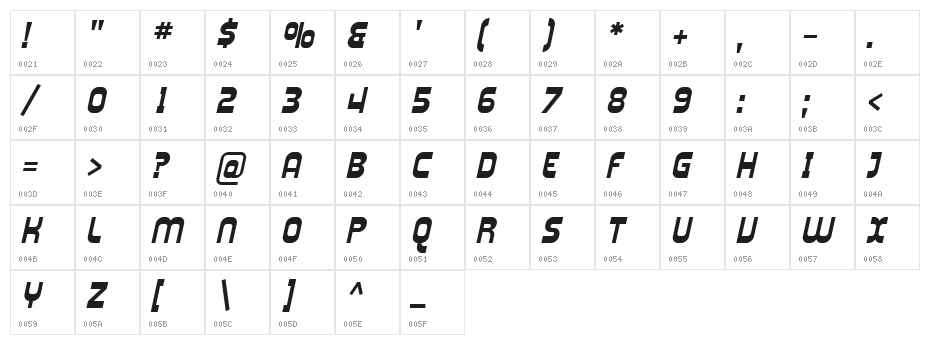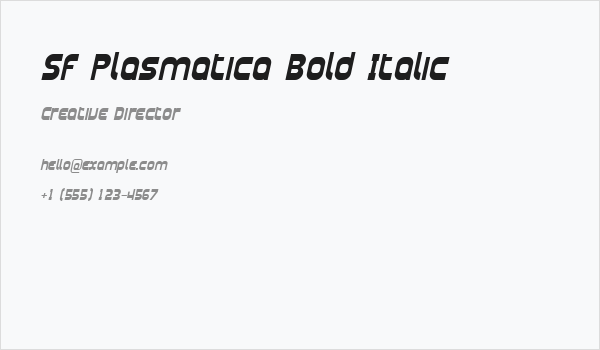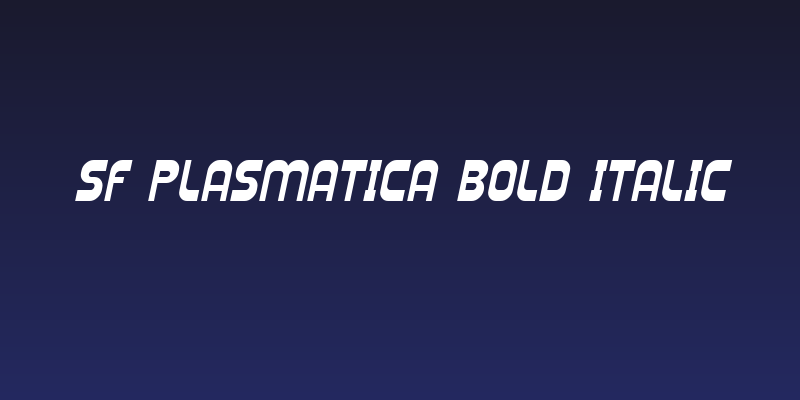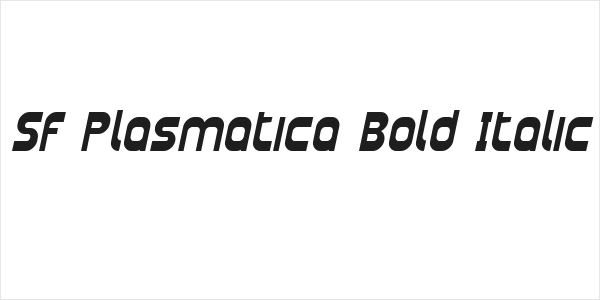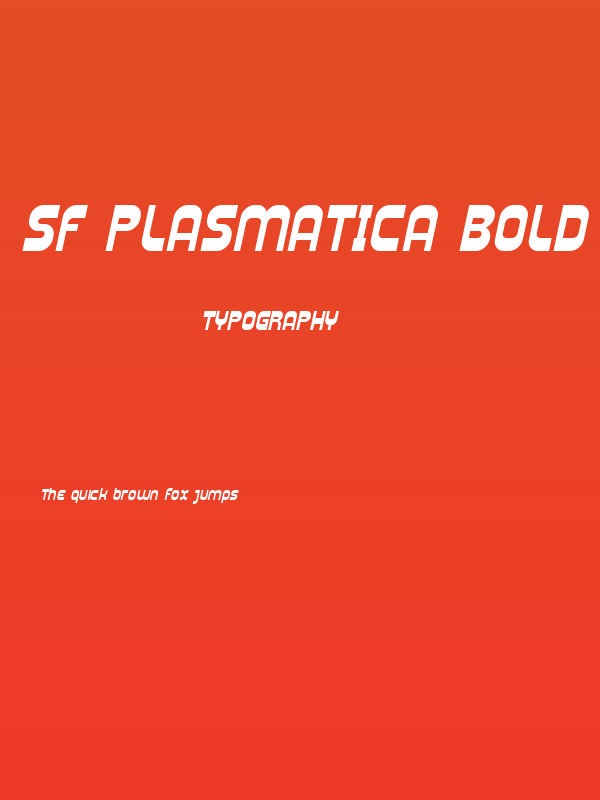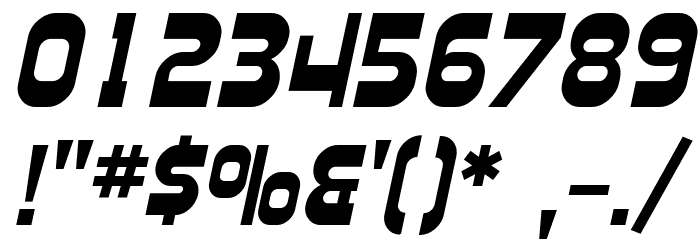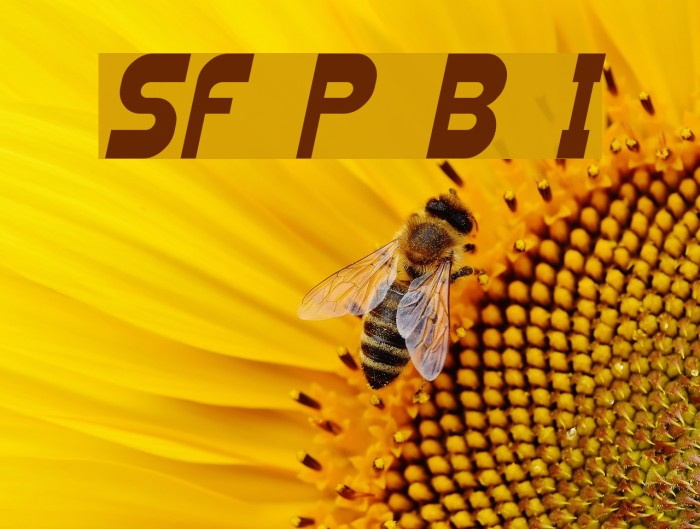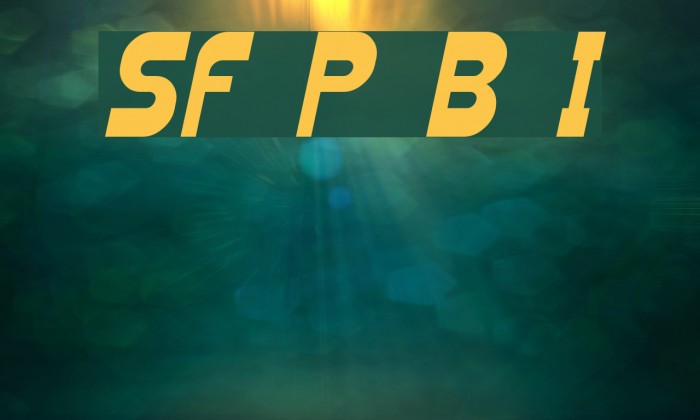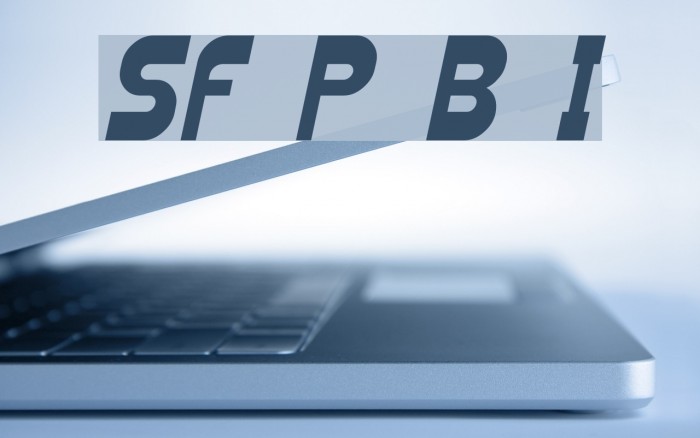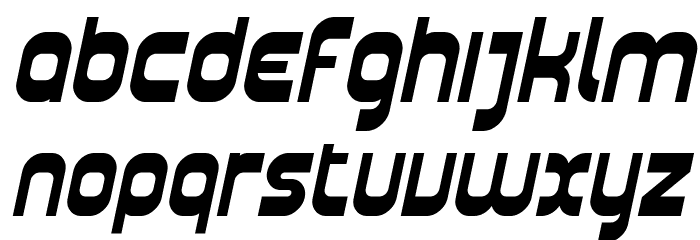
SF Plasmatica Bold Italic Font
SF Plasmatica Bold Italic Description
This font exhibits a futuristic and dynamic style, characterized by its bold and italicized form. The letters are slightly slanted, giving a sense of motion and energy. The strokes are thick and consistent, providing a strong visual impact. The design features rounded edges and smooth curves, which soften the overall appearance while maintaining a modern aesthetic. The numerals and special characters follow the same stylistic cues, ensuring uniformity across all glyphs. This font is ideal for projects that require a contemporary and assertive look.
| Proposed Projects | Ideal for technology branding, sci-fi posters, video game titles, and modern advertising. |